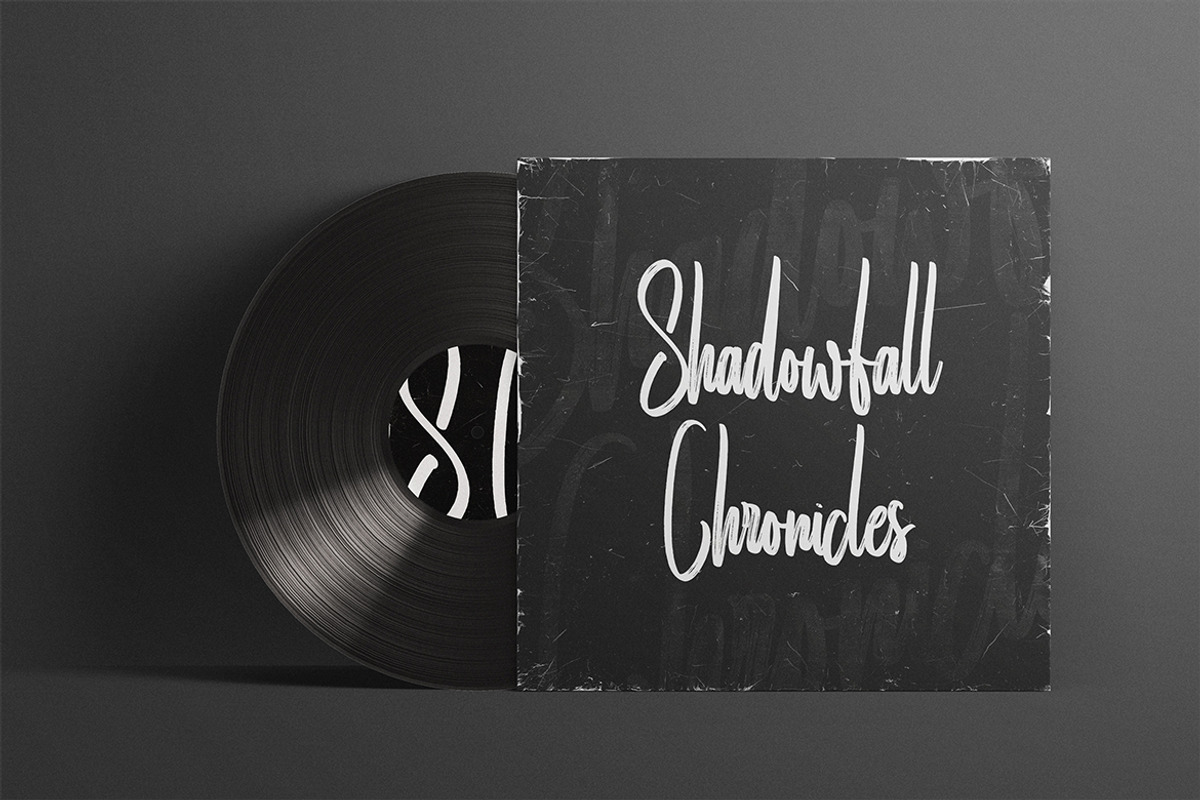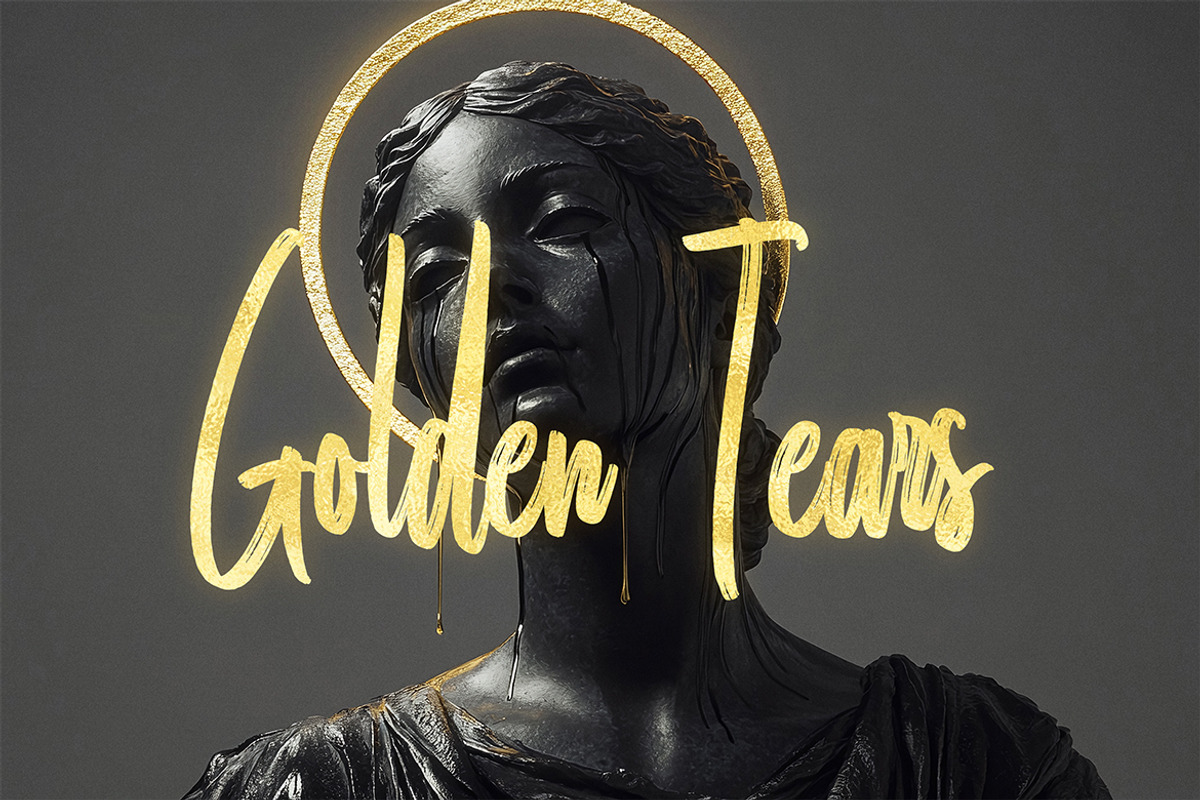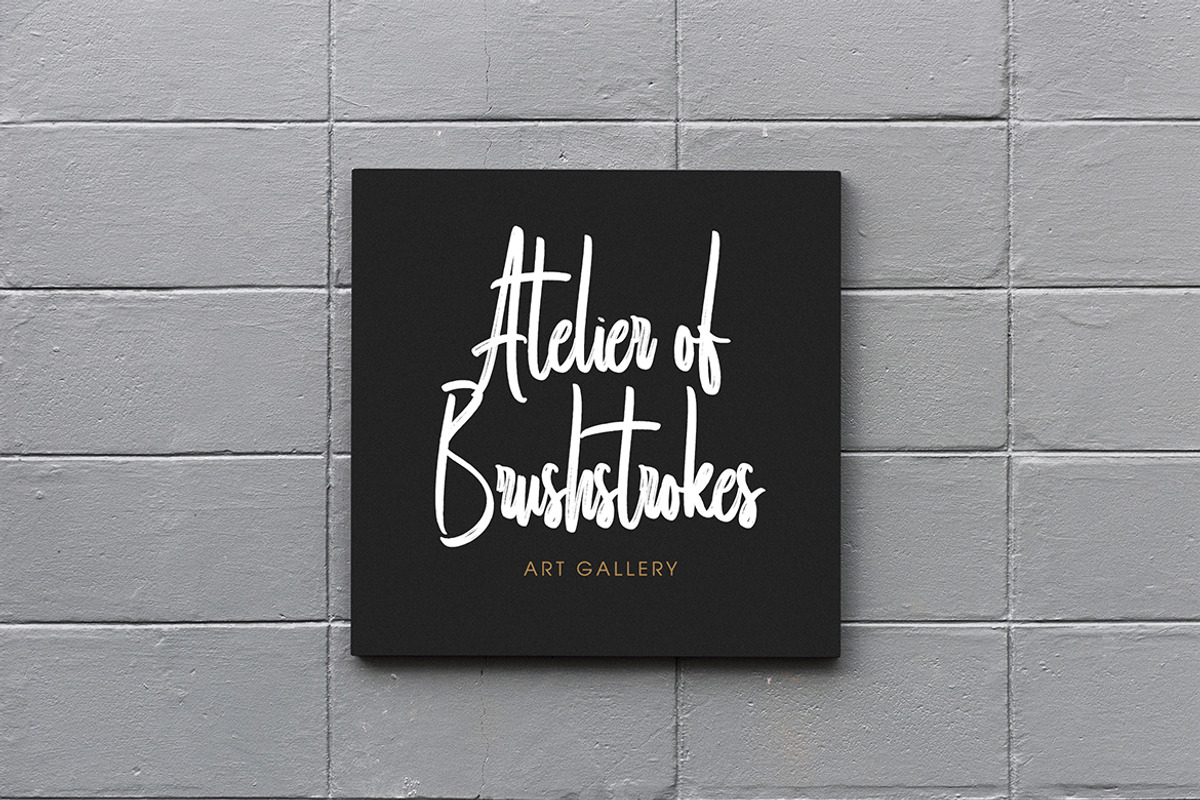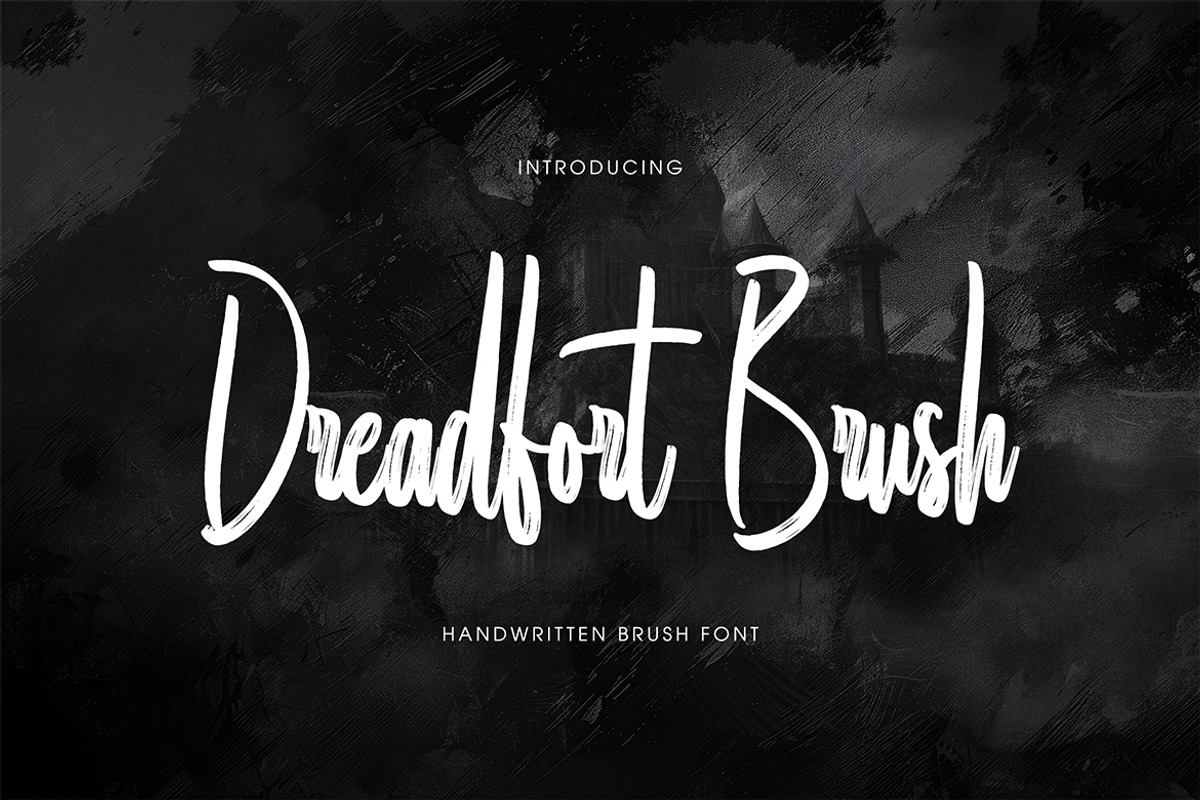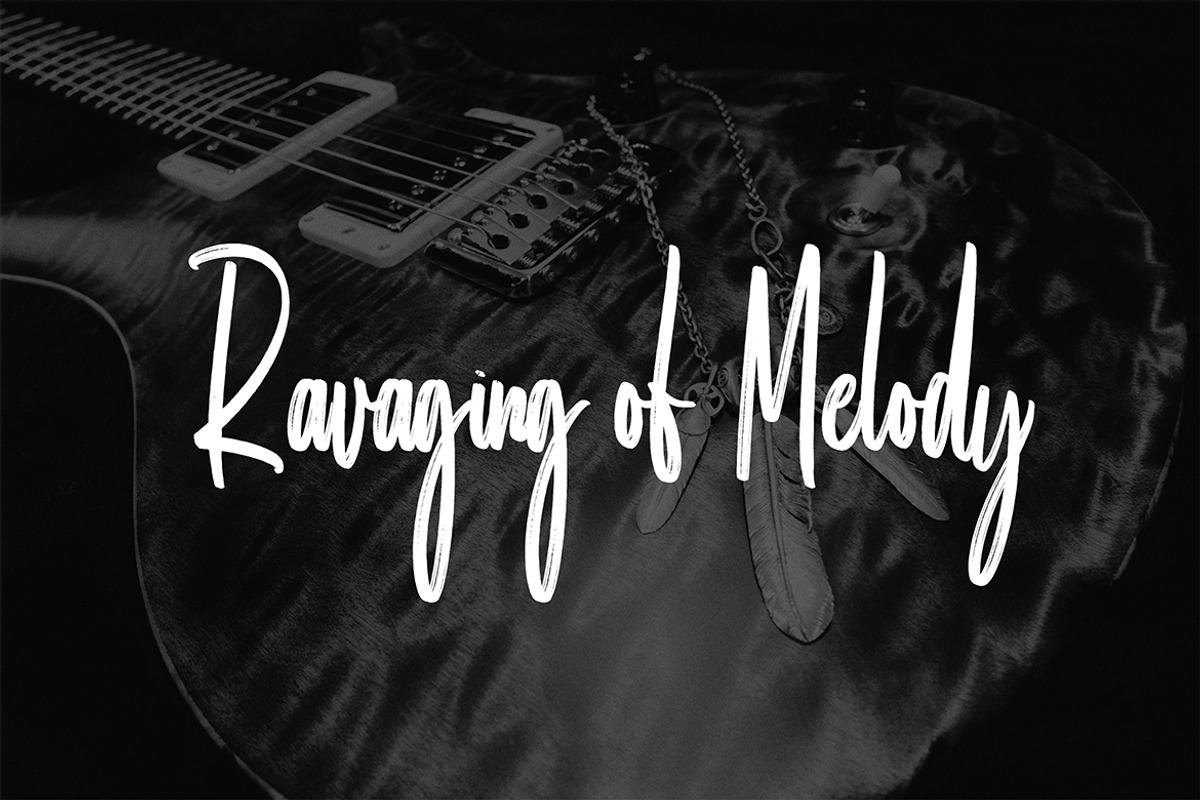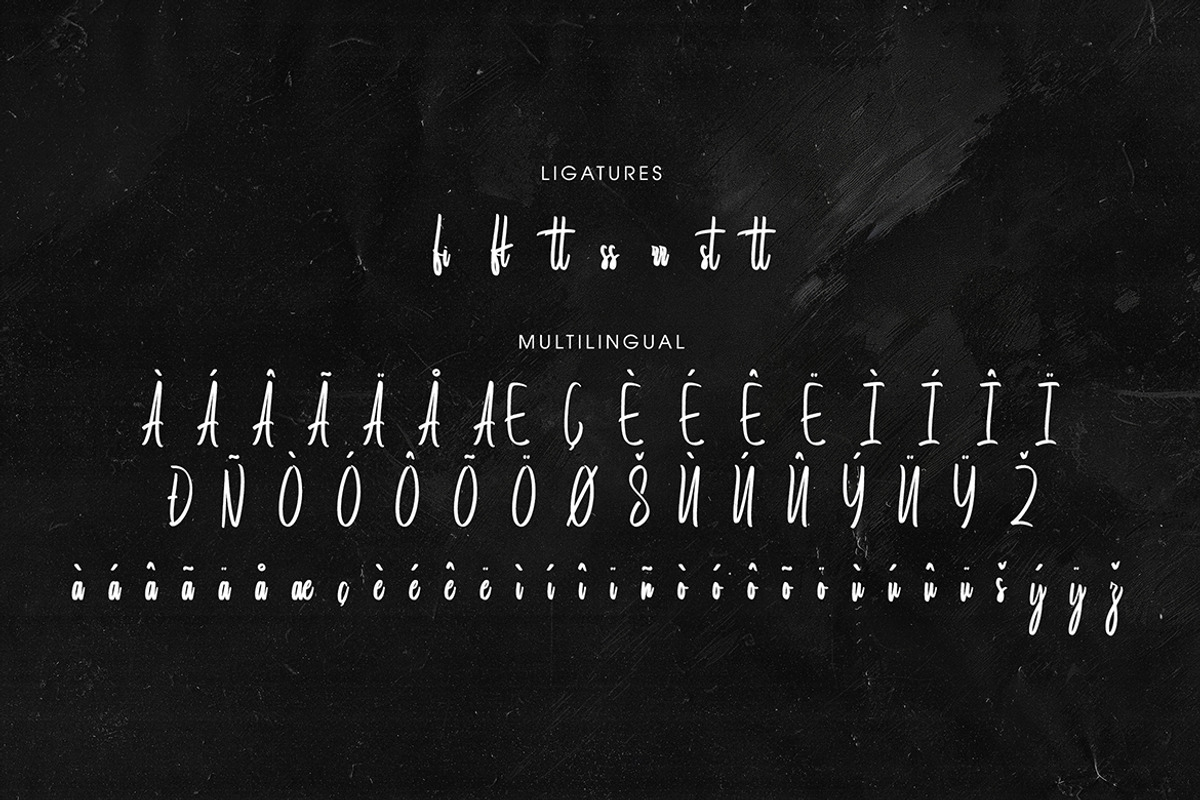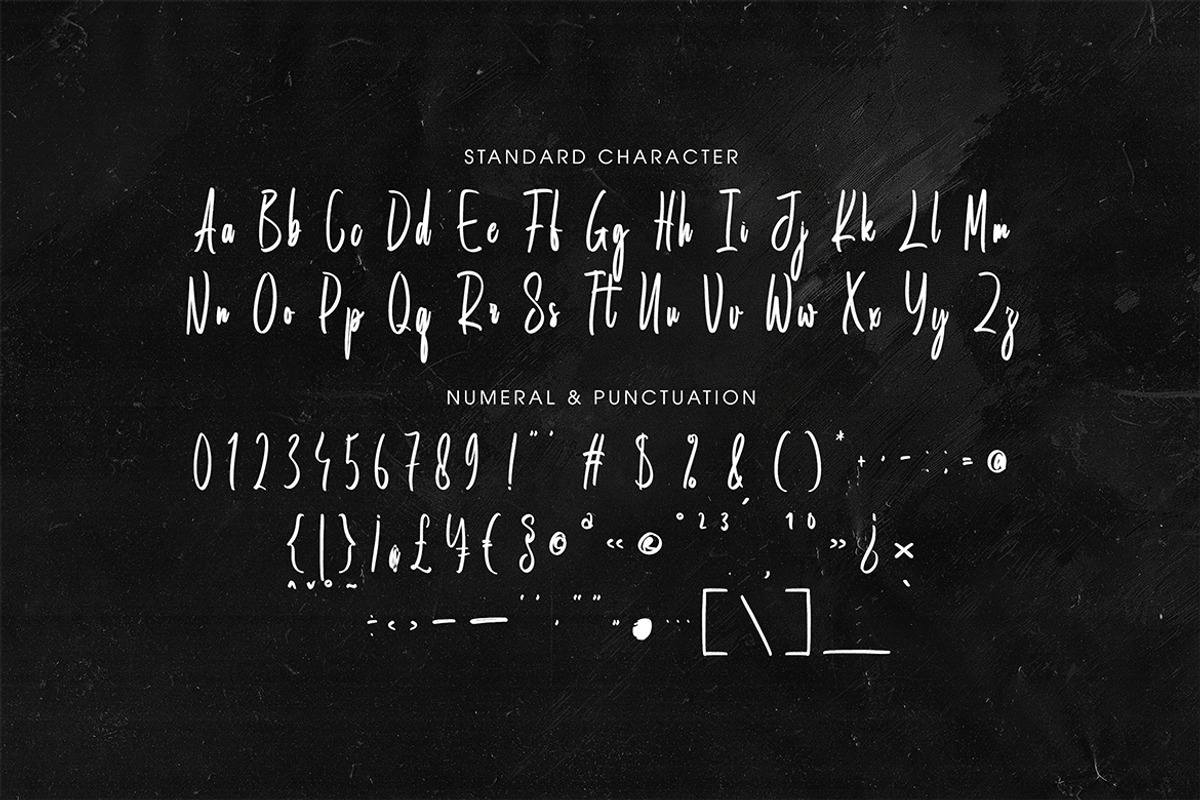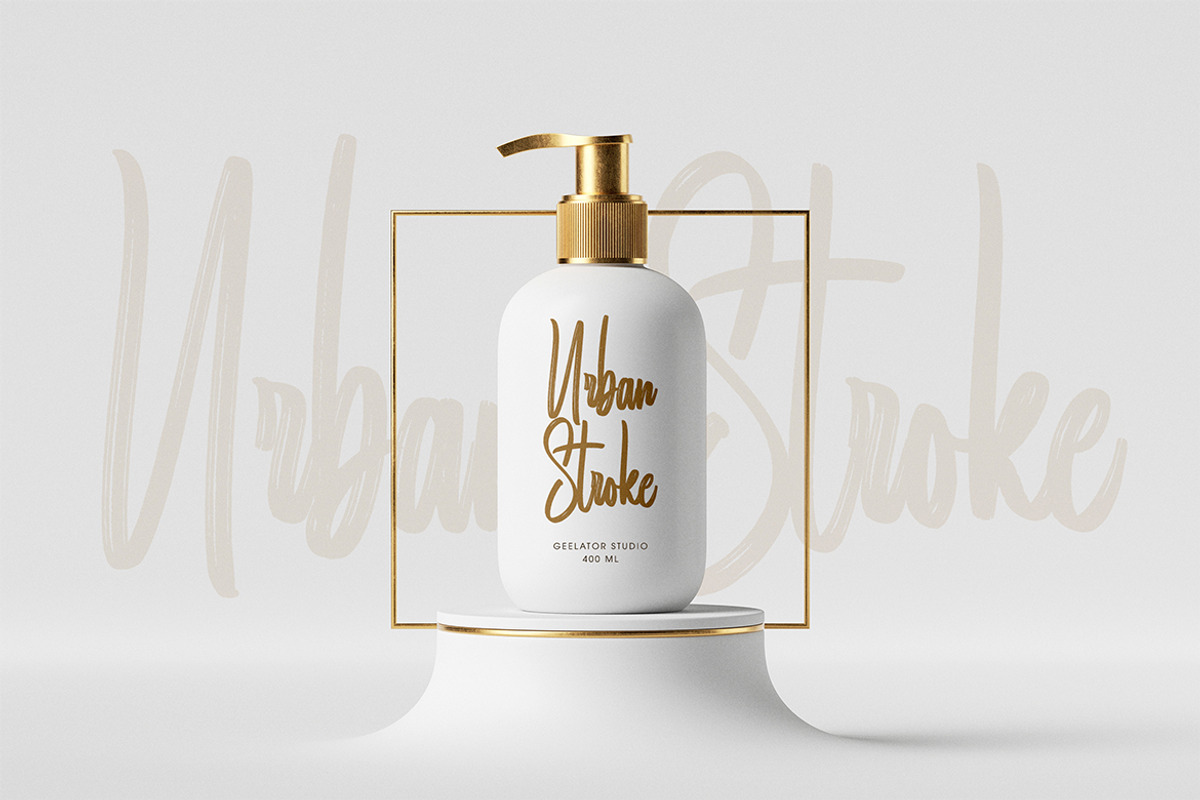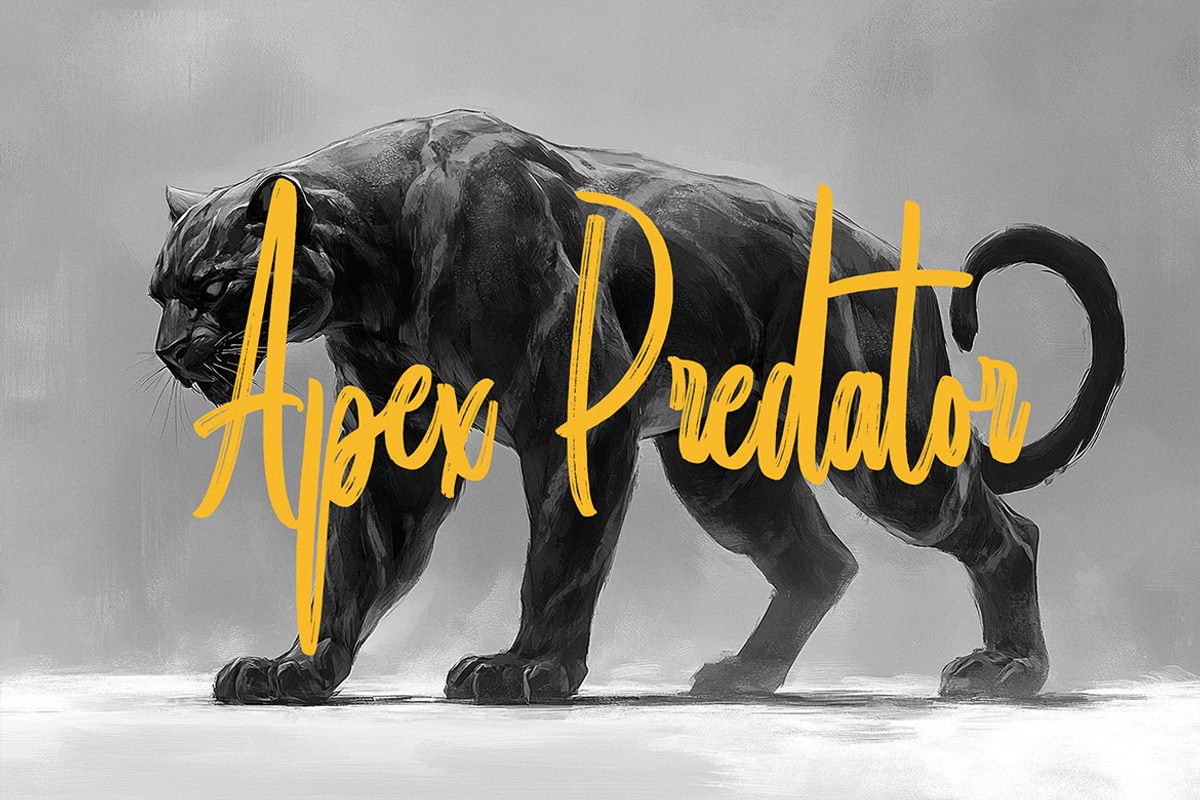
Dreadfort Handwritten Brush Font
Dreadfort Brush Font
Inject a raw, edgy attitude into your projects with "Dreadfort Brush," a handwritten font with a powerful brush-stroke style. Despite its fierce look, this versatile font is perfect for a wide range of applications, from bold headlines and logos to merchandise and album art, giving your designs a striking and unforgettable presence.